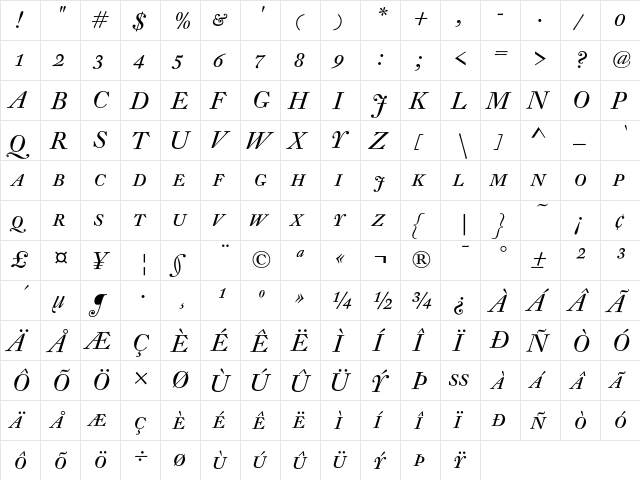
DTLFleischmannD CapsItalic Font Preview
DTLFleischmannD CapsItalic
Design Context for DTLFleischmannD Typeface
DTLFleischmannD takes a measured approach to typography — its balanced proportions and neutral character make it a reliable workhorse for both digital and print work. The dynamic lean of this cut emphasises speed and emphasis in any layout.
Pro Tip: Use DTLFleischmannD for emphasis, pull quotes, and subheadings where its slanted energy can add rhythm to the layout.